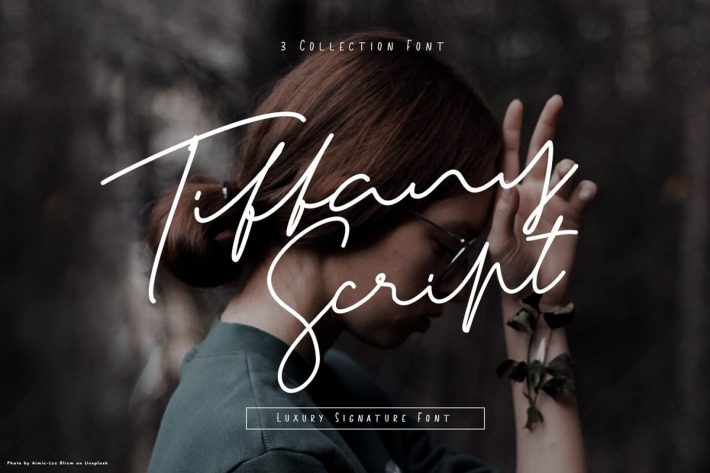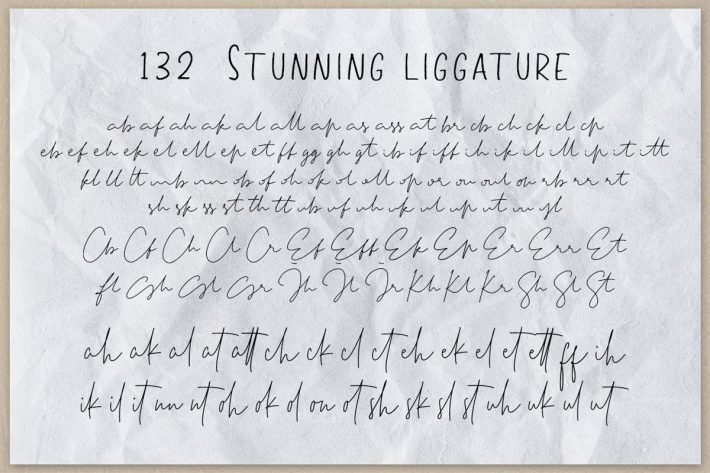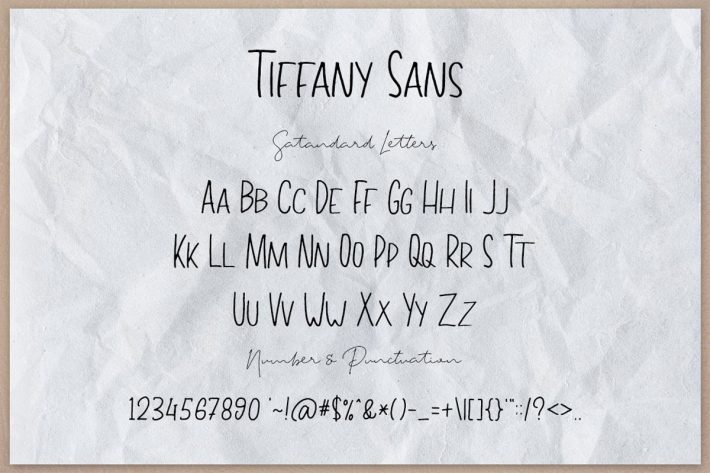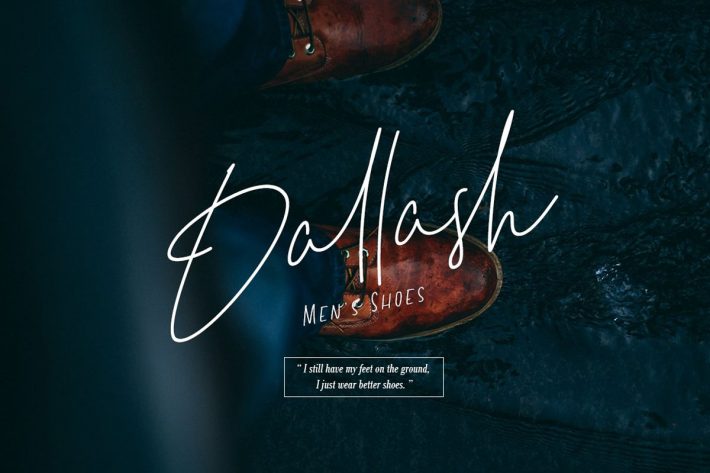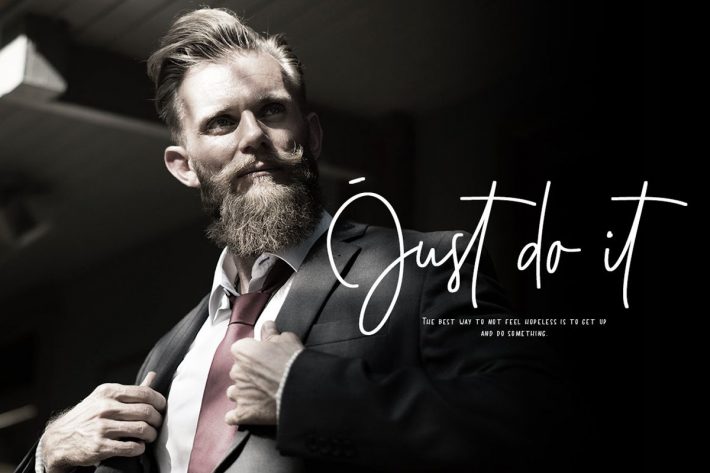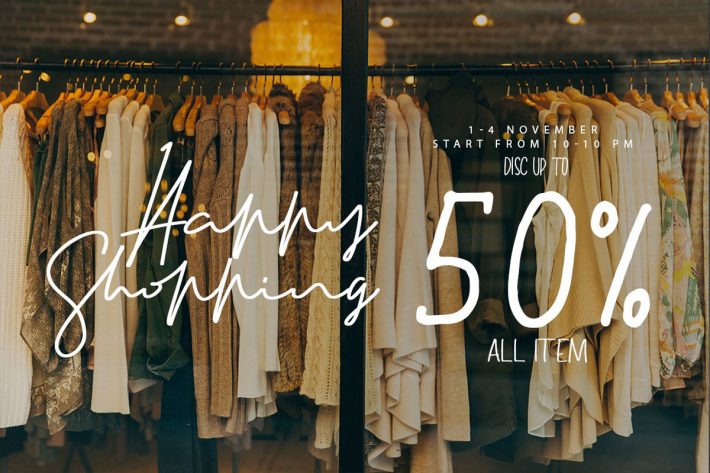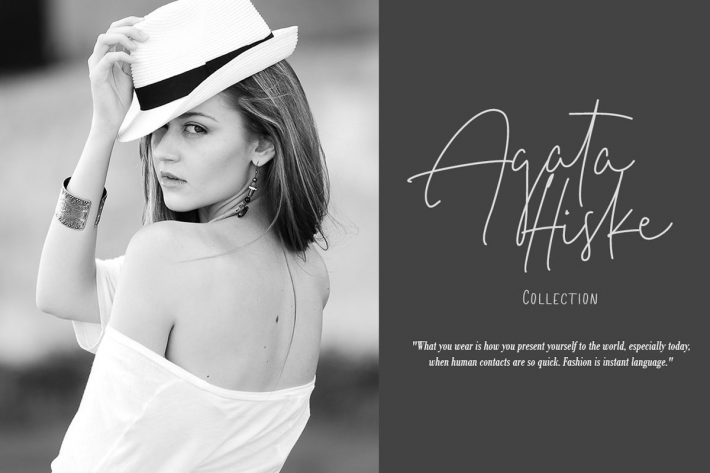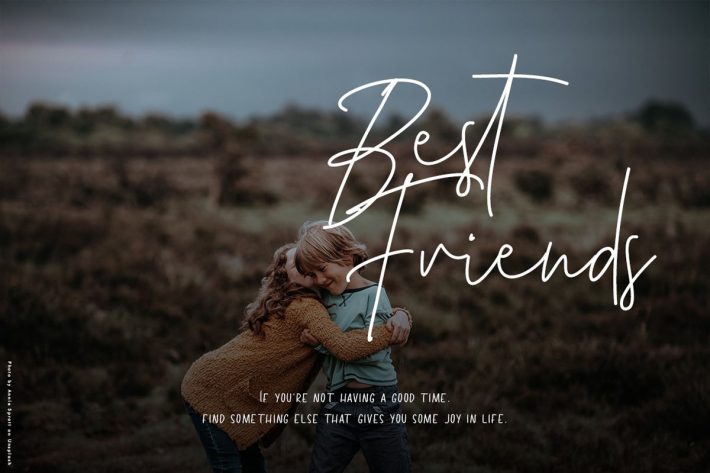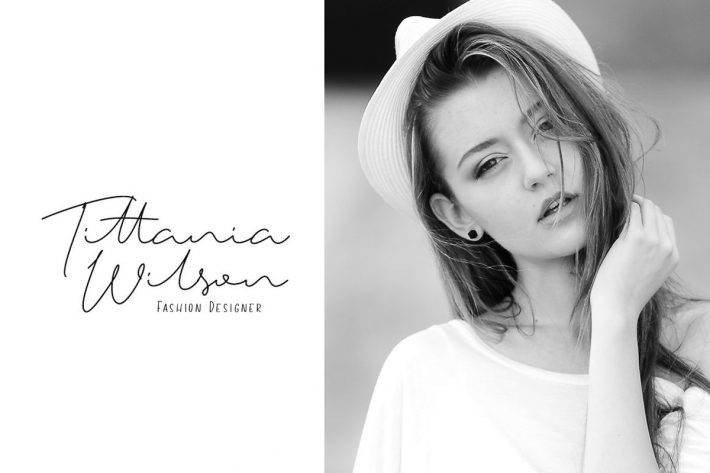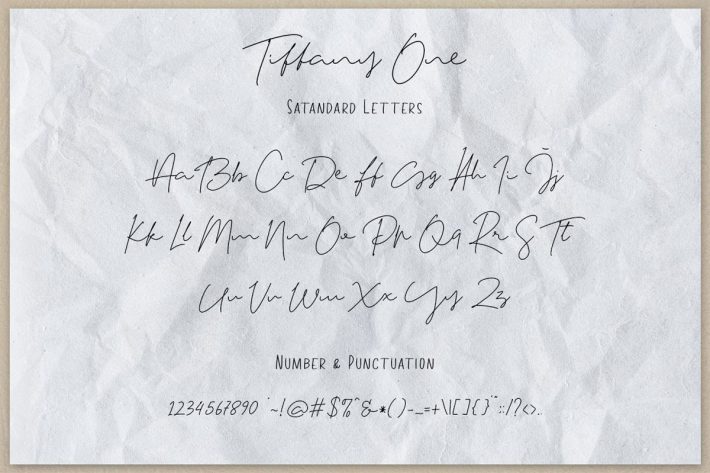
Tiffany font is a handwritten constructed typeface which contains simple but candid, elegant and beautiful characters created by Ardyana Types .
Tiffany font is very appropriate and appealing when using in brand design essentials as it has 3 variations of style. One has the most unusual character which matches of all your needs to spread on each letter more sketchily.
Tiffany also presents 132 ligatures from 2 dissimilar types to build up the natural pronunciation with the nuances of handwriting.
Tiffany is the exact what you may want to have. In fact, it is the perfect choice to use in company logo design, watermarks on photography, album covers, signatures, quotes, business cards and many other designing projects.
“In creating fonts, we must think about using them in detail in each letter so that they can be connected with other letters naturally and smoothly”. Said by font creator.